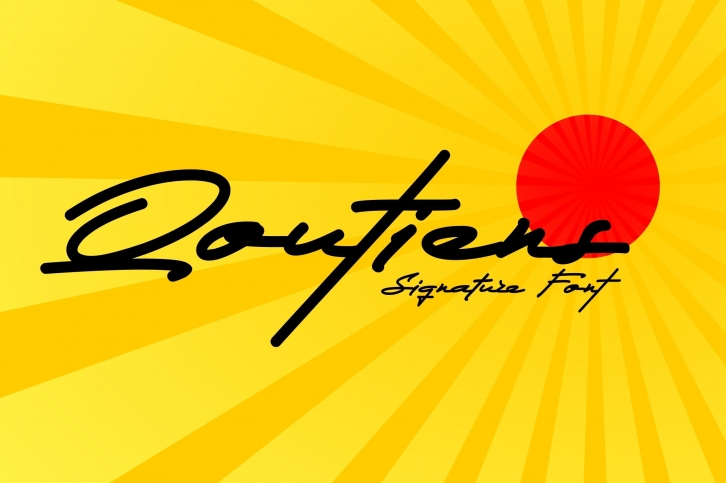
Qoutiens is a great font that was designed by Seventype. Imagine the amount of combinations you can create using this font! The archive is 13.81 MB and it was released on February 4, 2021. Qoutiens looks beautiful on wedding invitations, greeting cards, logos, posters, labels, t-shirt designs, logos, business cards and is perfect for use in ink or watercolor works, fashion, magazines, packaging and food menus, children's books and more!